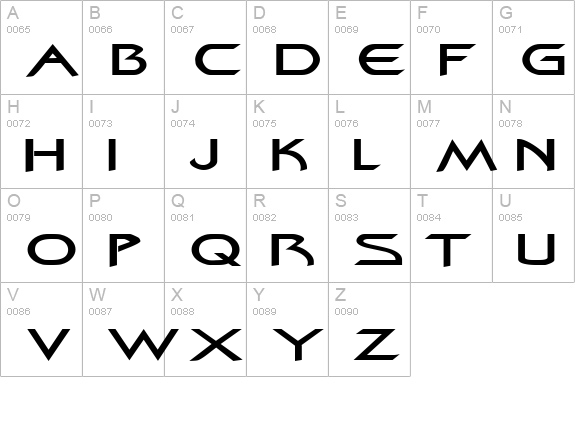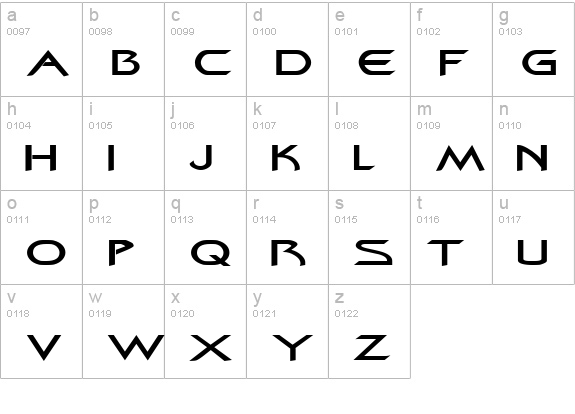
ZenonExtended Font Details
ZenonExtended is a modern and sleek font that exudes sophistication and elegance. With its extended character set and clean lines, this font is perfect for a wide range of design projects, from branding to editorial design. The sleek, minimalist design of ZenonExtended makes it a versatile choice for both digital and print applications. What's even better is that ZenonExtended is available for free download at FontsMarket.com. This means you can easily access this stylish font for all your creative projects without breaking the bank. Whether you're working on a personal project or a professional assignment, ZenonExtended is sure to elevate your designs with its contemporary aesthetic and effortless charm. Download ZenonExtended for free today and add a touch of modern sophistication to your next design project!